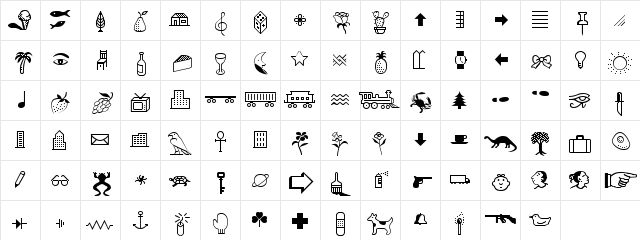
Mixed Dings Regular
Design Context for Mixed Dings Typeface
Mixed Dings is a composed and adaptable typeface that performs quietly and consistently across a wide range of design contexts.